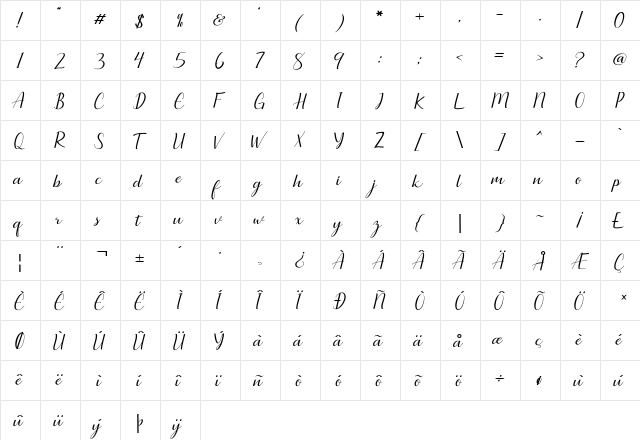
Seullanga Regular
| Foundry | Zulkhairi M Saleh |
| Designer | Zulkhairi M Saleh |
Design Context for Seullanga Typeface
Seullanga takes a measured approach to typography — its balanced proportions and neutral character make it a reliable workhorse for both digital and print work.